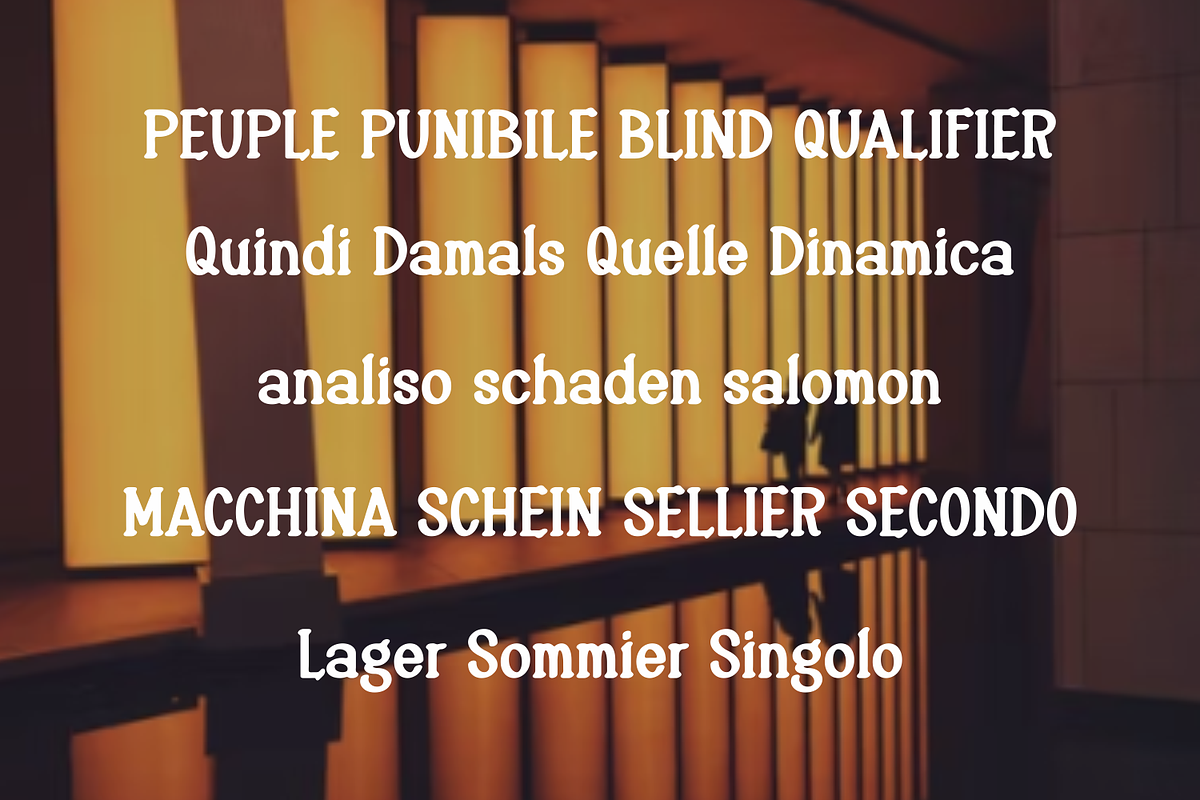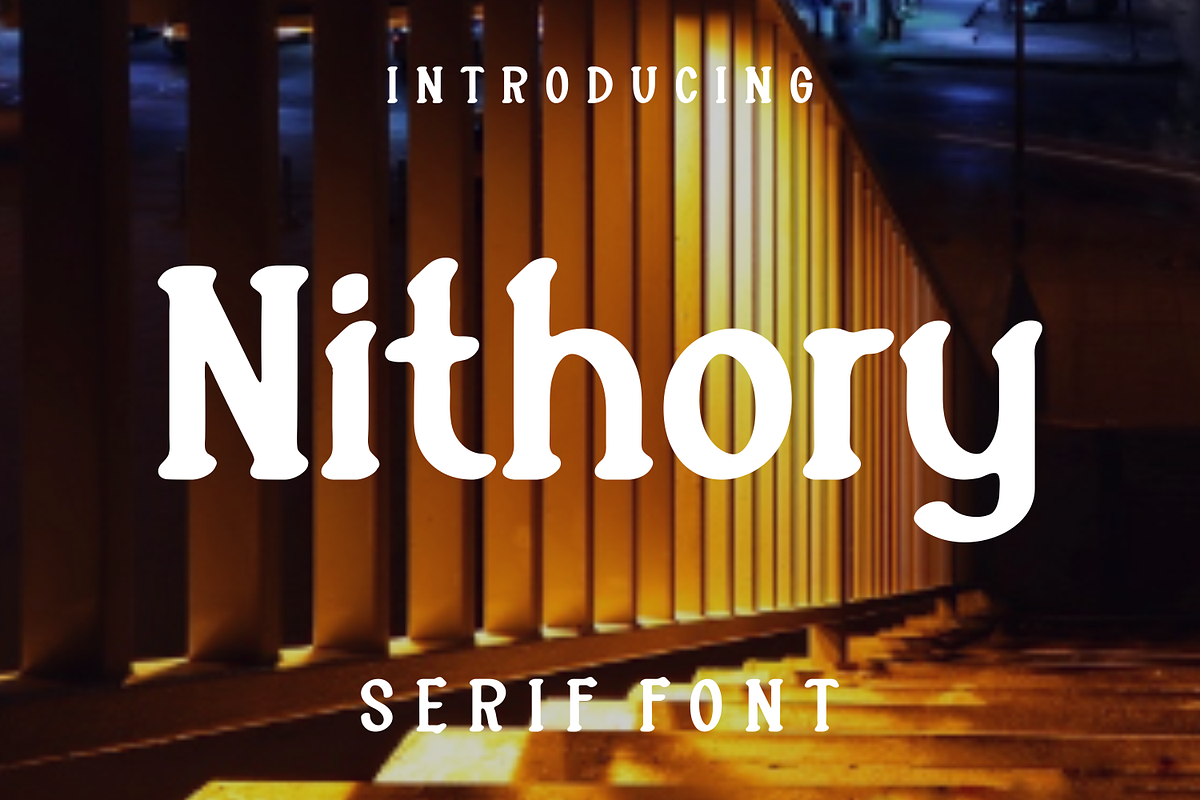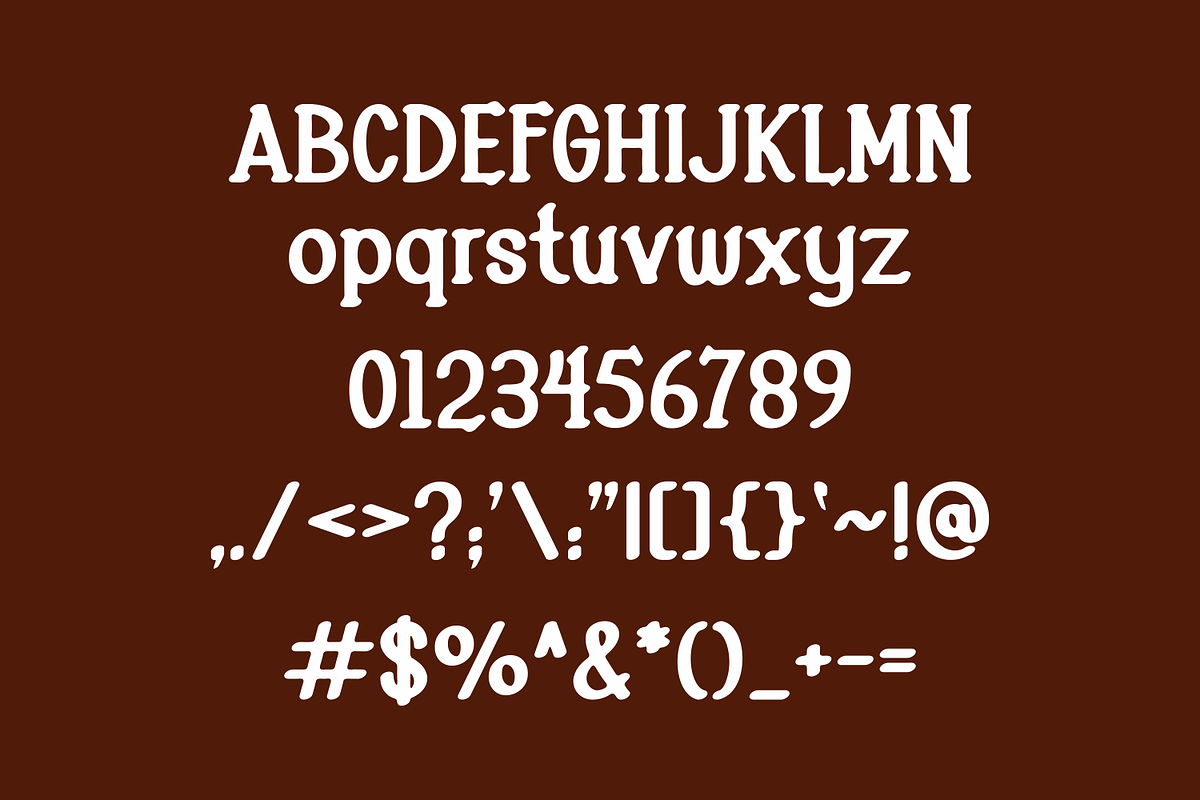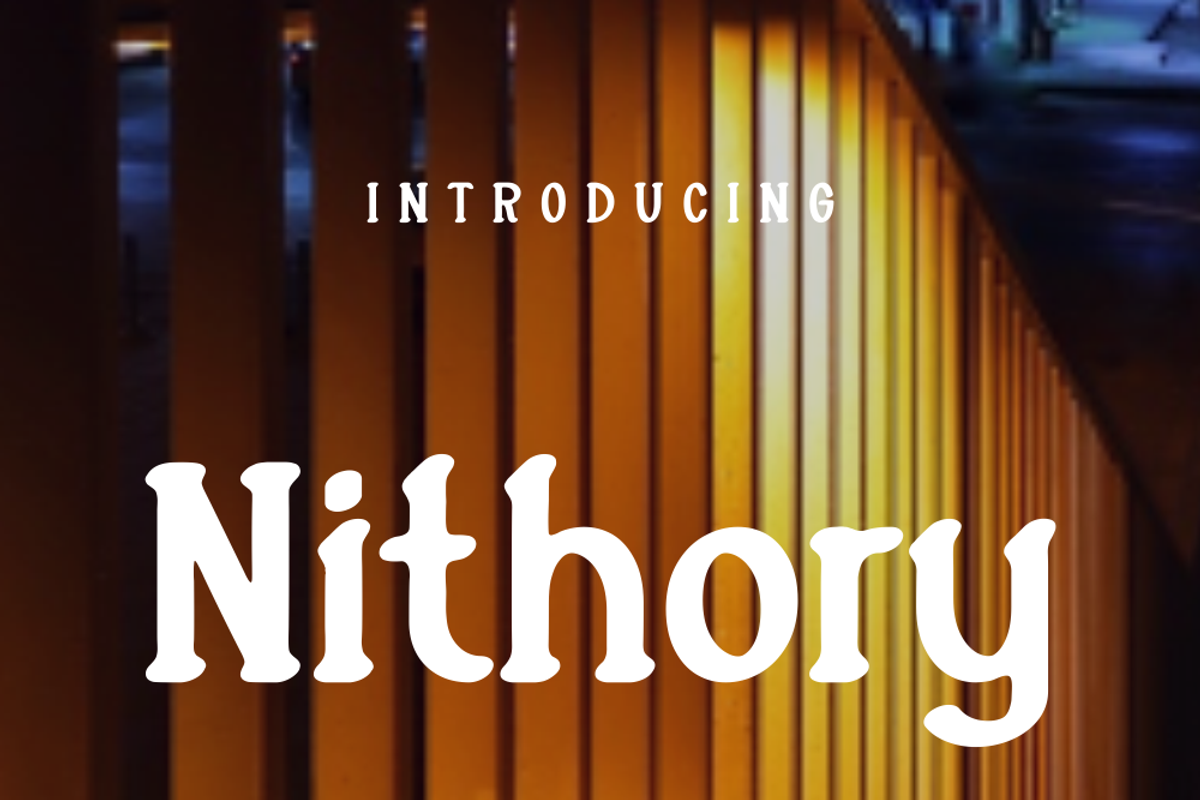
Nithory
Nithory Perfectly suited on print/screen. it’s perfect for Branding, name card, poster, logo, magazine, cover, banner, t-shirt and headers, or even large-scale artwork.